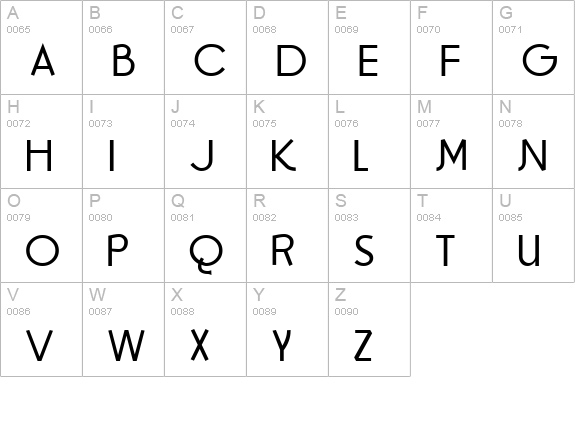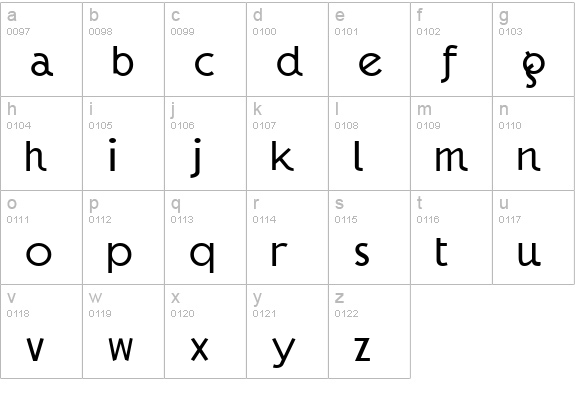
GaumontLight Font Details
GaumontLight font is a modern and elegant typeface that exudes sophistication and style. With its clean lines and delicate curves, this font is perfect for adding a touch of class to any design project. The soft, rounded edges of GaumontLight give it a friendly and approachable feel, making it a versatile choice for a wide range of applications. What's even better is that GaumontLight is available for free download at FontsMarket.com, making it easily accessible to anyone looking to elevate their designs with a touch of elegance. Whether you're creating a logo, designing a website, or working on a branding project, GaumontLight is sure to make a lasting impression. Download this beautiful font today and add a touch of sophistication to your next design endeavor.